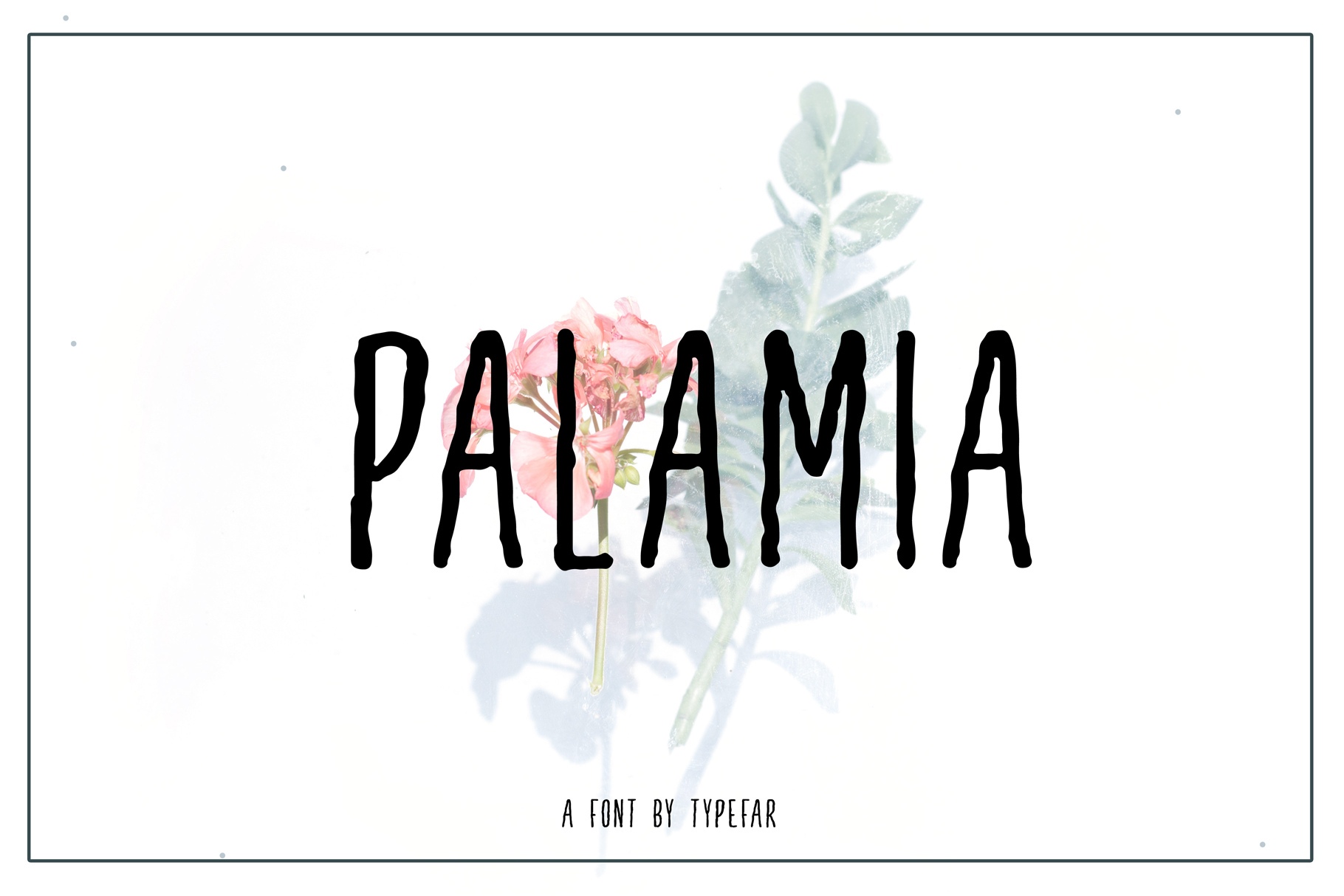
Palamia Typeface
Palamia Typeface is perfect for tropical resort branding, exotic travel marketing, Mediterranean restaurant menus, beach vacation promotions, island lifestyle blogs, coastal real estate materials, summer festival graphics, tropical beverage packaging, ocean-themed event invitations, paradise destination advertising, warm climate tourism, and sunny projects that require vibrant, paradise-inspired typography with tropical sophistication and vacation appeal.
What makes Palamia Typeface so exciting is its exotic tropical charm and paradise-inspired elegance that captures the essence of sun-soaked destinations and the carefree spirit of island living. This typeface features flowing letterforms with organic curves and warm characteristics that evoke crystal-clear waters, swaying palm trees, and endless summer days. The font's tropical character and vacation appeal make it perfect for brands and projects that want to communicate escape, relaxation, and the irresistible allure of paradise destinations and tropical experiences.
Palamia Typeface typically comes in multiple weights and styles including Light, Regular, Medium, and Bold variations. Many versions also include tropical ornaments, paradise-themed decorative elements, and vacation-inspired symbols that enhance the font's exotic functionality and provide designers with comprehensive tools for creating authentic, tropically-inspired typography compositions that transport audiences to paradise.
Escape to paradise with the tropical elegance of Palamia Typeface Free Download. This captivating typeface brings together exotic charm with contemporary design functionality, making it an essential tool for travel brands and hospitality professionals who need to create memorable, vacation-inspired communications that resonate with audiences seeking tropical escape and paradise experiences. The font's exotic character ensures your projects will evoke feelings of wanderlust and tropical bliss.
Whether you're designing tropical resort materials, exotic travel campaigns, or paradise-themed branding, Palamia Typeface delivers exceptional warmth and tropical authenticity that connects with audiences who dream of crystal-clear waters and sun-drenched beaches. Its flowing, organic appearance works beautifully with tropical color palettes and paradise imagery, creating designs that feel both exotic and professionally sophisticated.
The beautifully crafted letterforms of Palamia Typeface demonstrate exquisite attention to the natural flow and warm rhythm that defines tropical aesthetics and paradise living. Each character has been designed to maintain excellent readability while delivering the exotic personality that makes tropical-themed projects feel authentic and emotionally transporting for audiences seeking vacation vibes and paradise inspiration.